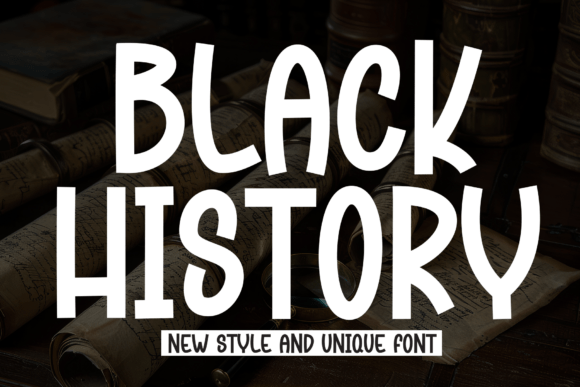
The Power of Typography: Honoring the Past and Inspiring the Future
As I scrolled through a social media post highlighting the struggles and triumphs of the Civil Rights Movement, I couldn’t help but feel a sense of awe at the powerful typography that brought the message to life. The bold, hand-drawn sans-serif letters seemed to leap off the screen, conveying the gravity and urgency of the issue. It was in that moment that I realized the impact of typography on our collective understanding of history.
Enter the Black History Font, a powerful display typeface designed to honor the past and inspire the future. This font is more than just a visual representation – it’s a tool for designers to convey the complexities and nuances of Black history. With its bold, hand-drawn letterforms and heavy weight, the Black History Font is the perfect choice for designers looking to create high-impact designs that do justice to the rich cultural heritage of Black communities.
Key Features of “Black History Font”
- Font Family: A unique collection of fonts designed to honor and celebrate African American history and culture.
- Unique Characteristics: Features distinctive typography inspired by African American historical events, figures, and cultural symbols, making it a standout choice for designers and artists.
Black History Font Review
As a designer, I was excited to dive into the “Black History Font” and see how it would impact my designs. Here’s my honest take:
- Unique aesthetic: The font’s bold and modern design is a great addition to any project that needs a touch of sophistication.
- High legibility: The font is easy to read, even at smaller sizes, making it perfect for body text or headlines.
- Wide language support: The font supports a wide range of languages, including many African languages, which is a huge plus for designers working on projects that require multilingual support.
- Limited font weight options: While the font is bold, it’s only available in a few weights, which can limit its versatility in certain design situations.
- No italics or obliques: If you need to use italics or obliques in your design, this font may not be the best choice.
- Not suitable for formal or traditional designs: The font’s modern design may not be the best fit for formal or traditional projects, where a more classic or serif font is preferred.
Overall, I think the “Black History Font” is a great addition to any designer’s toolkit. While it has some limitations, its unique aesthetic and high legibility make it a great choice for modern designs. I’d definitely recommend it to designers working on projects that need a bold and sophisticated look.
The Black History Font is ideal for:
- Celebrating Black History Month
- Creating educational materials about African American history
- Designing promotional materials for Black-owned businesses
- Adding a touch of cultural relevance to your designs